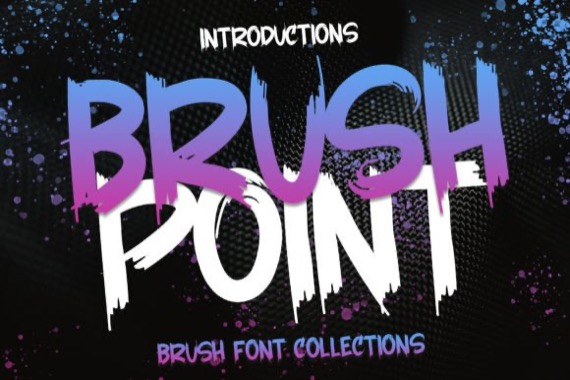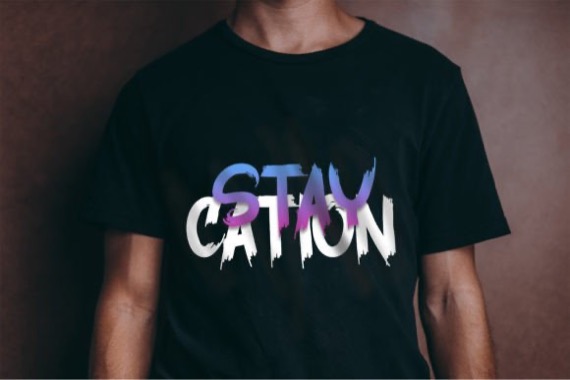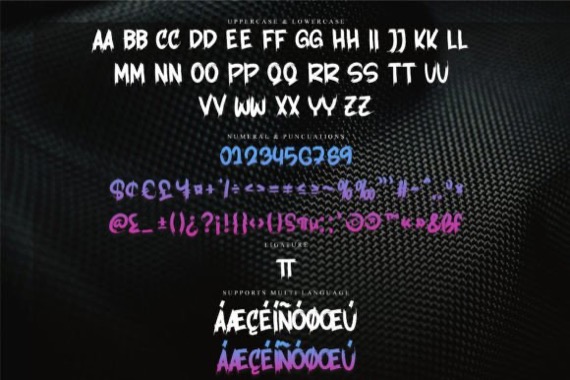
Brush Point is a simply elegant and modern brush script font that will add a fashionable look to any design project. It has a contemporary atmosphere and impeccable form, inspired by timeless classic calligraphy. Balanced and varied, this font was designed to enhance the beauty of your projects.
Brush Point Handwritten Font